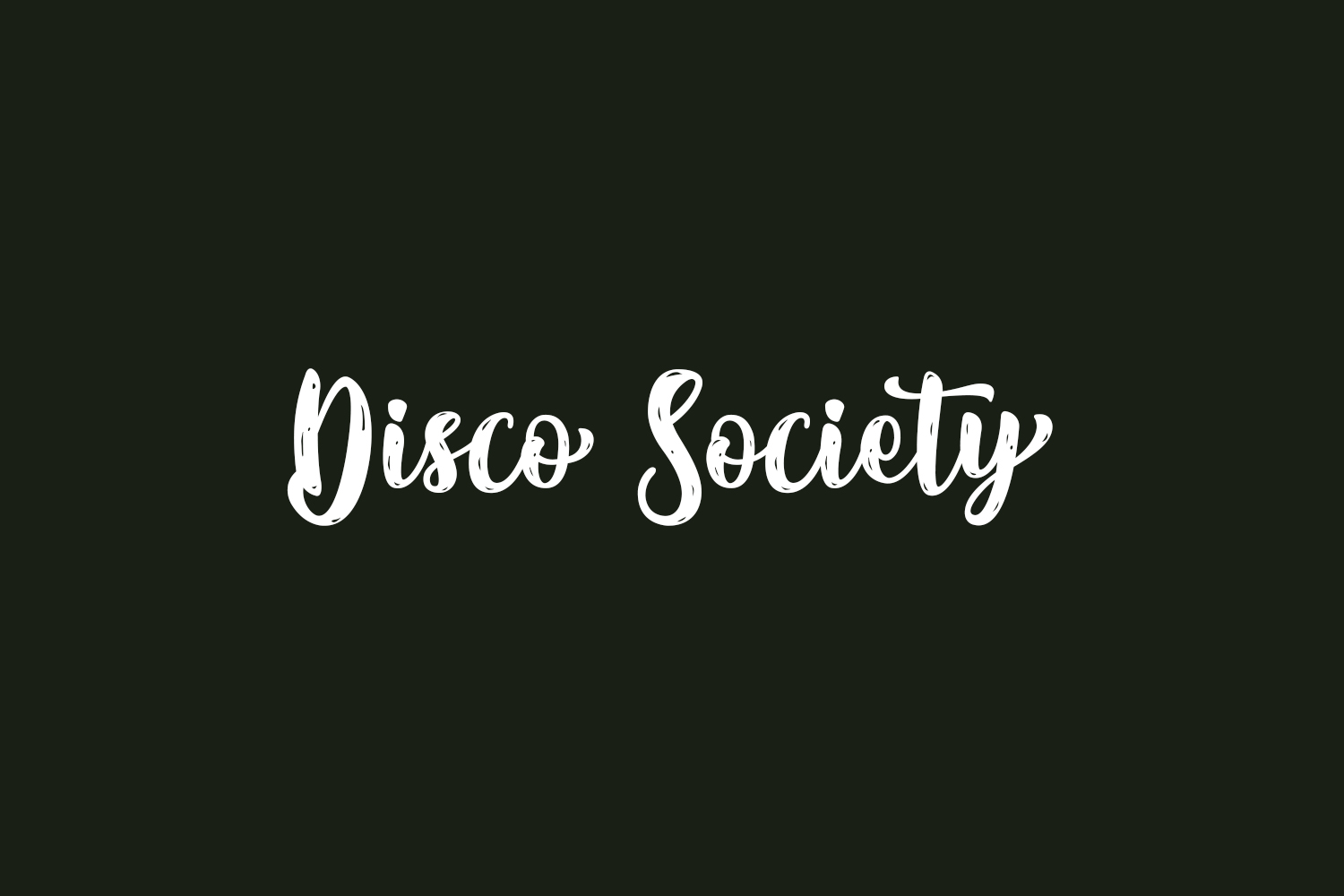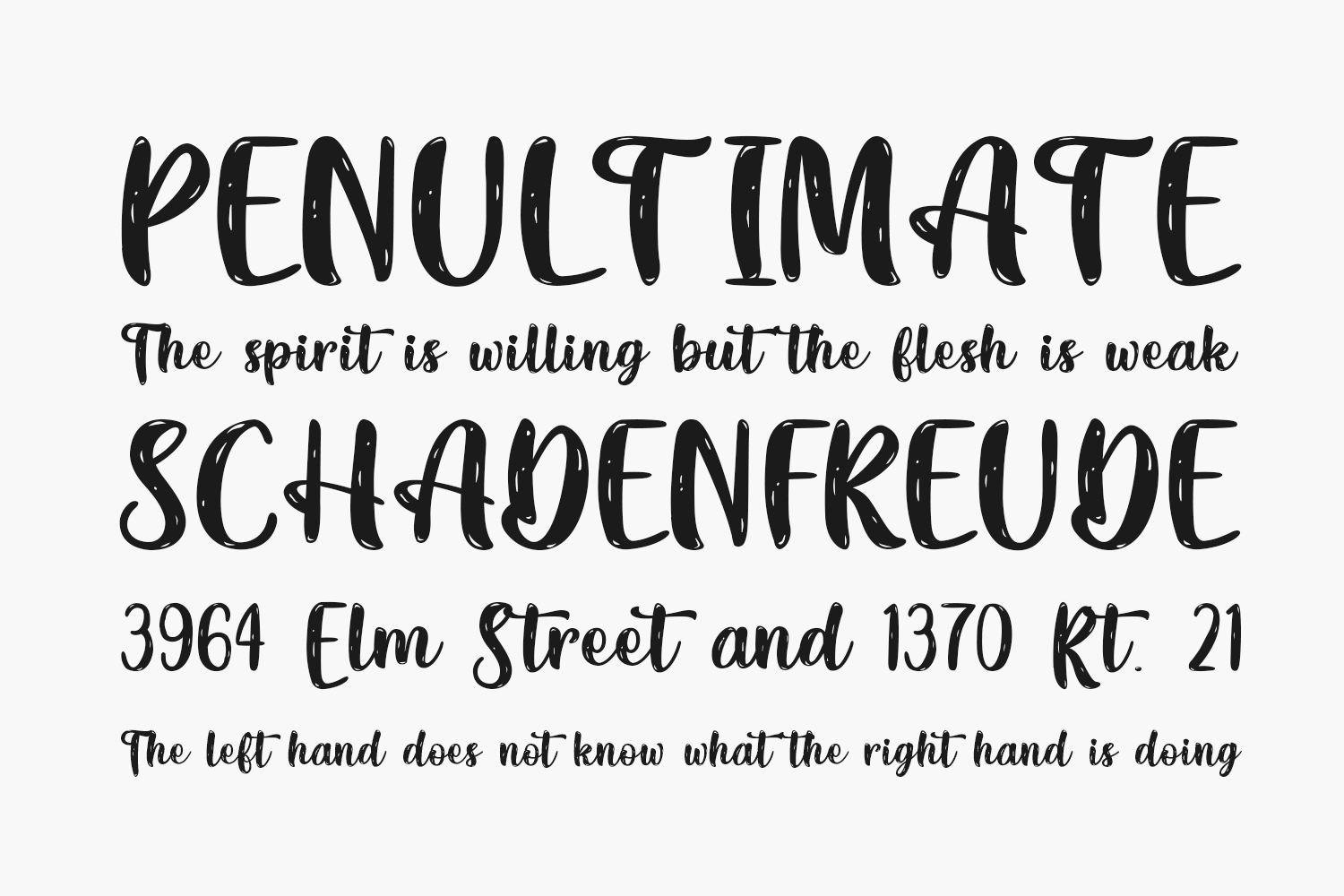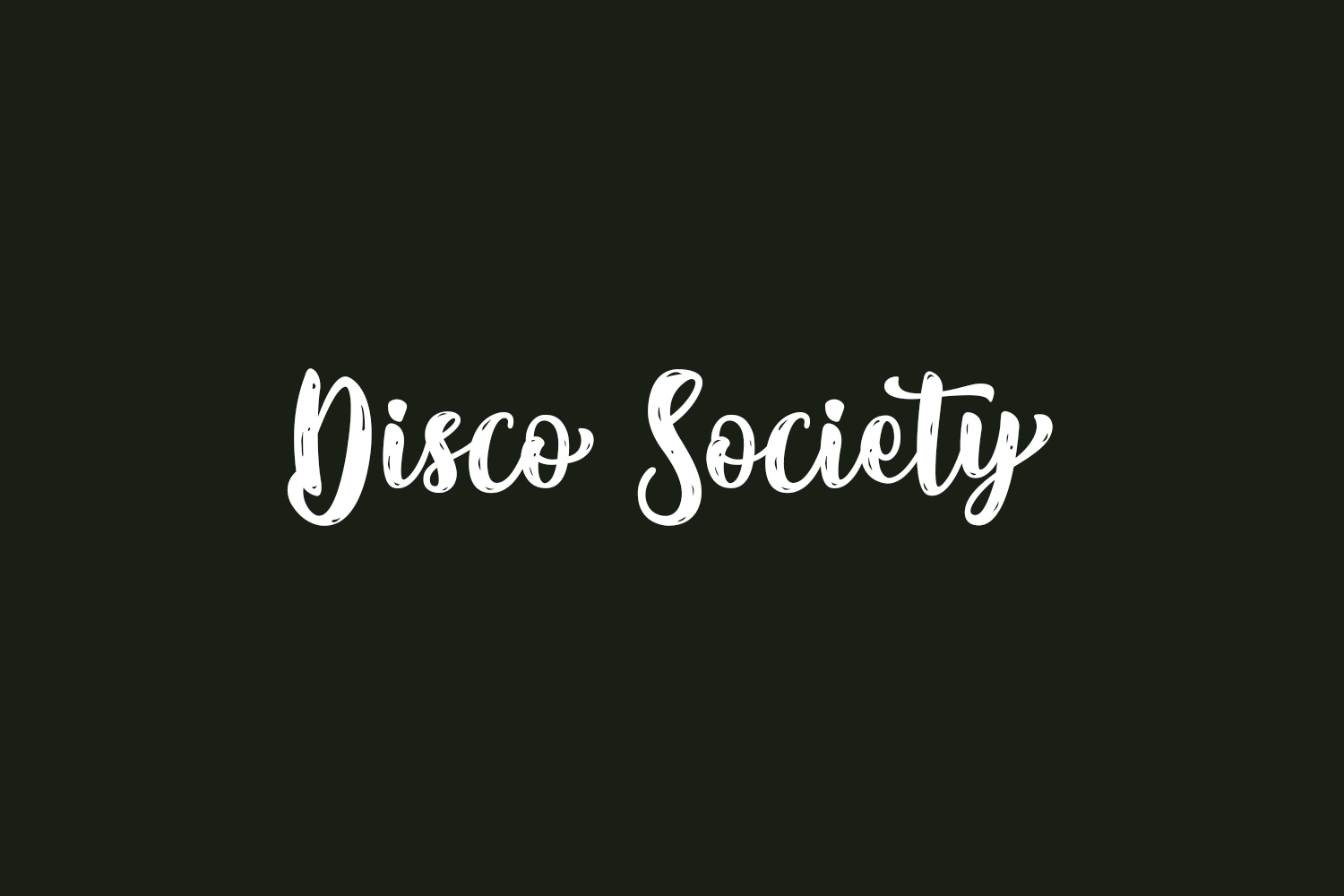
Disco Society Free Font is a perfect handwritten font for logos, name tags, advertising, product packaging, clothing, social media, greeting cards, and more. Disco Society Free Font was designed by Typhoon Type™ and is free for personal use only. Please purchase the full version for commercial use.